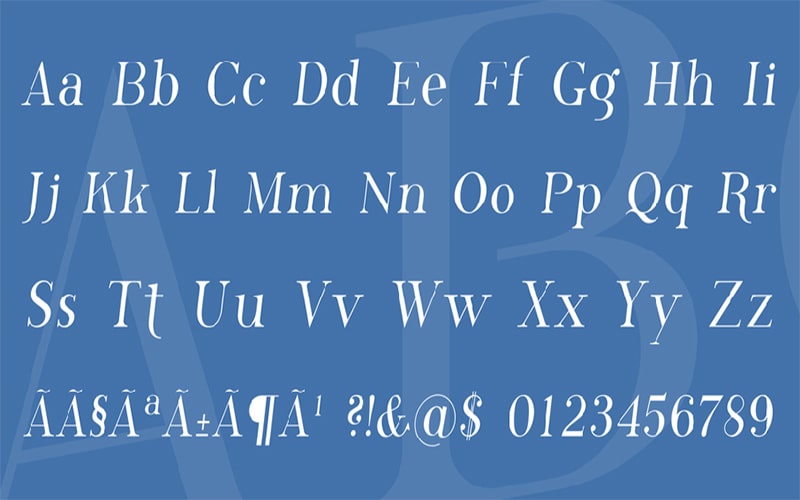
Phosphorus Selenide Font is a classy serif and display typeface that has a unique and amazing stylish appearance. Derek Vogelpohl takes charge of designing and publishing this font first.
The best thing about this typeface is that it has amazing readability even on short and large display screens. For more information on this, let’s take a look at the map images of the fine character included here.
Phosphorus Selenide Font
The structure is designed with slim strokes and the designer has applied cursive effect in every corner. If you look at its corners, you will see. It includes really refined letters and characters.
For any designing purposes, it is the most important thing to select the right font family. If a designer has a good understanding of pairing fonts, it will definitely offer great results. This font is one of the best typefaces.